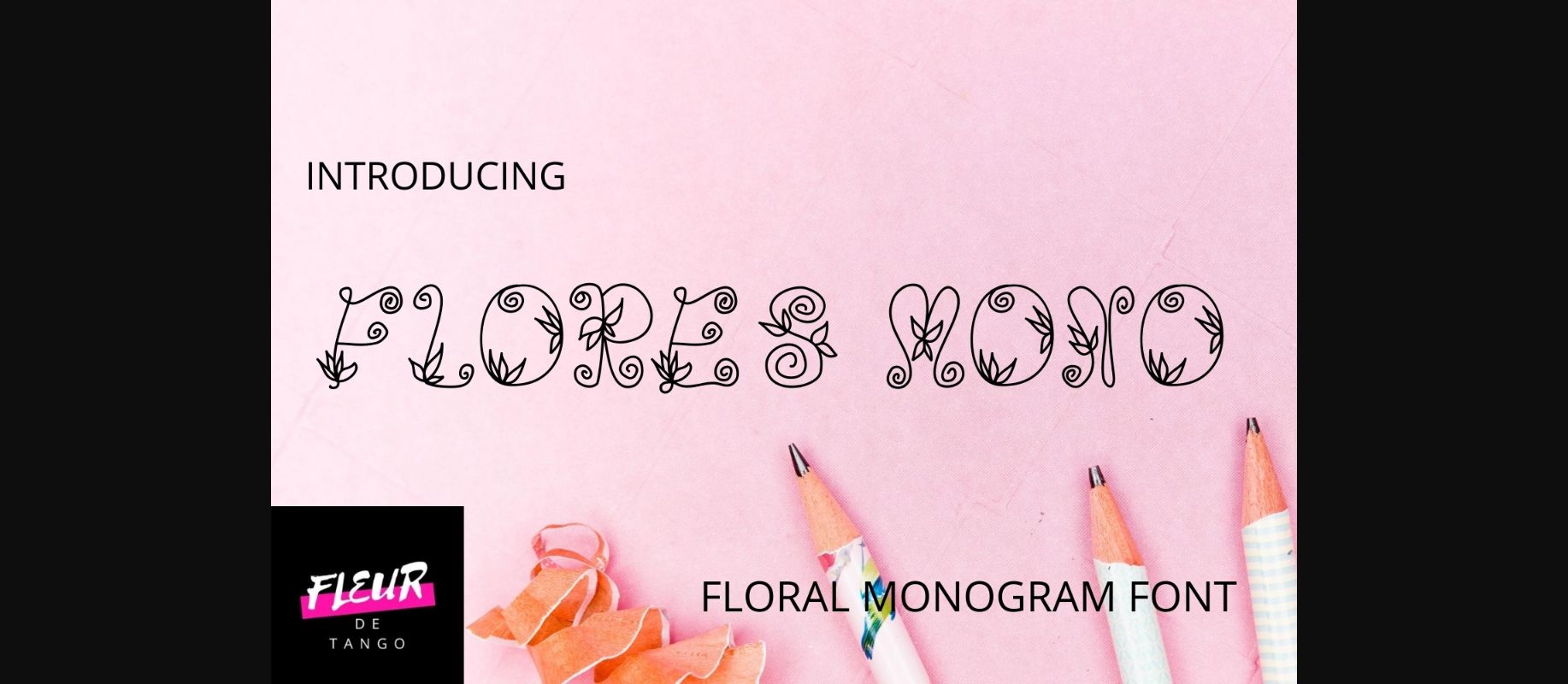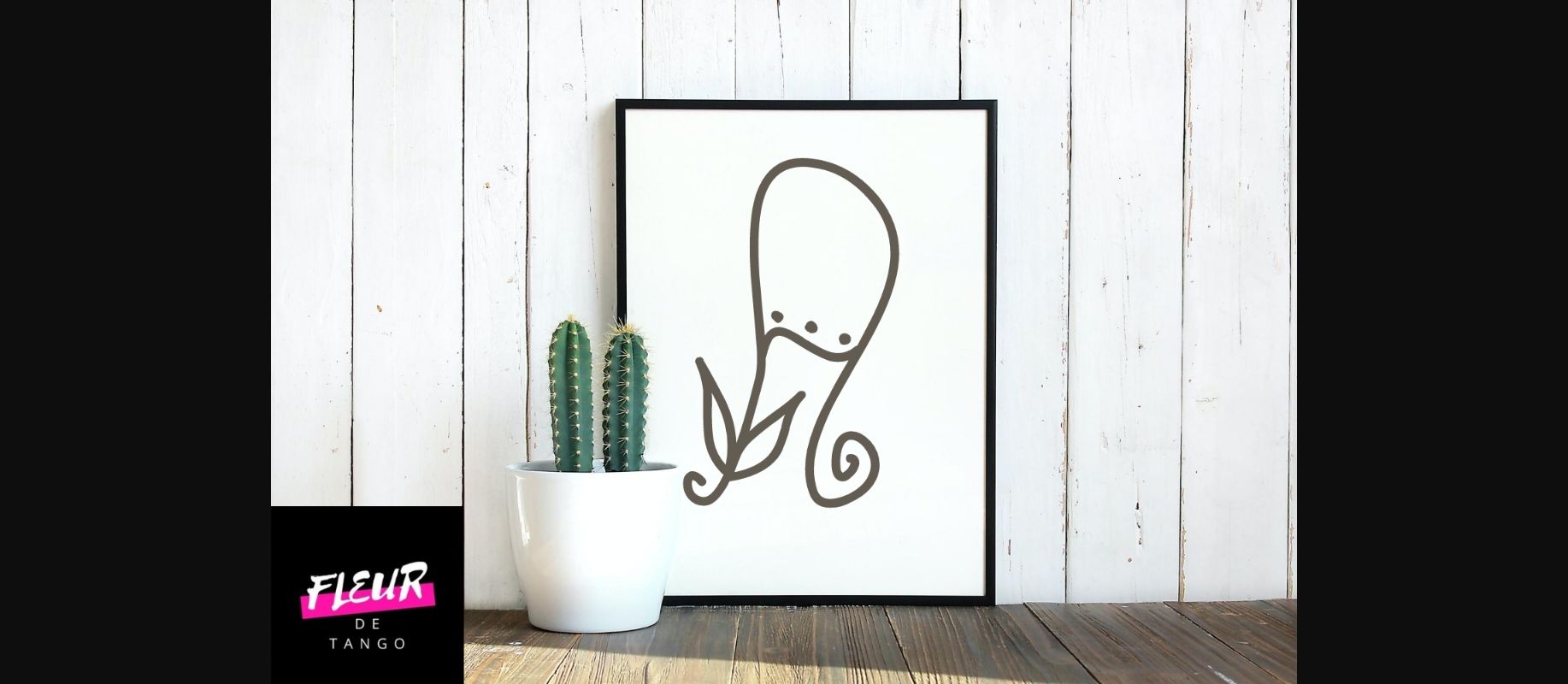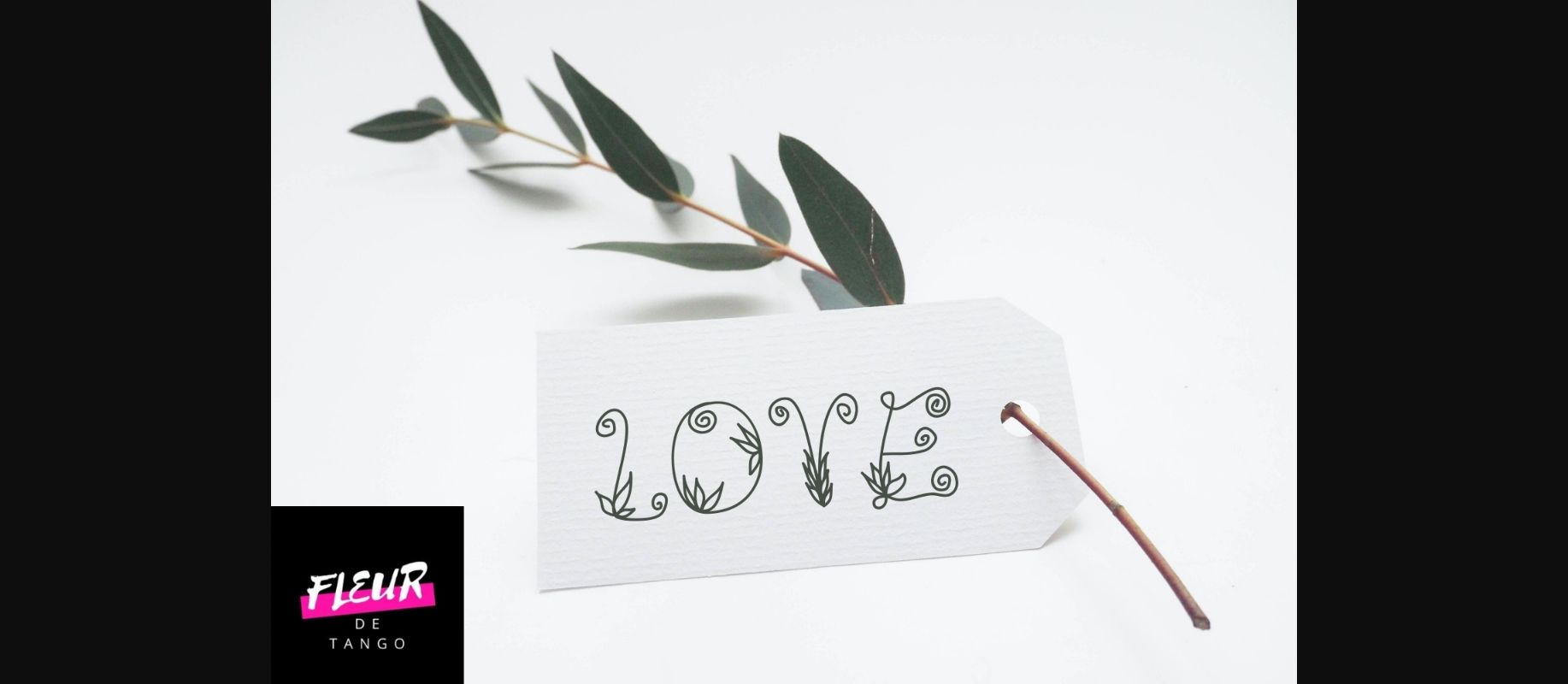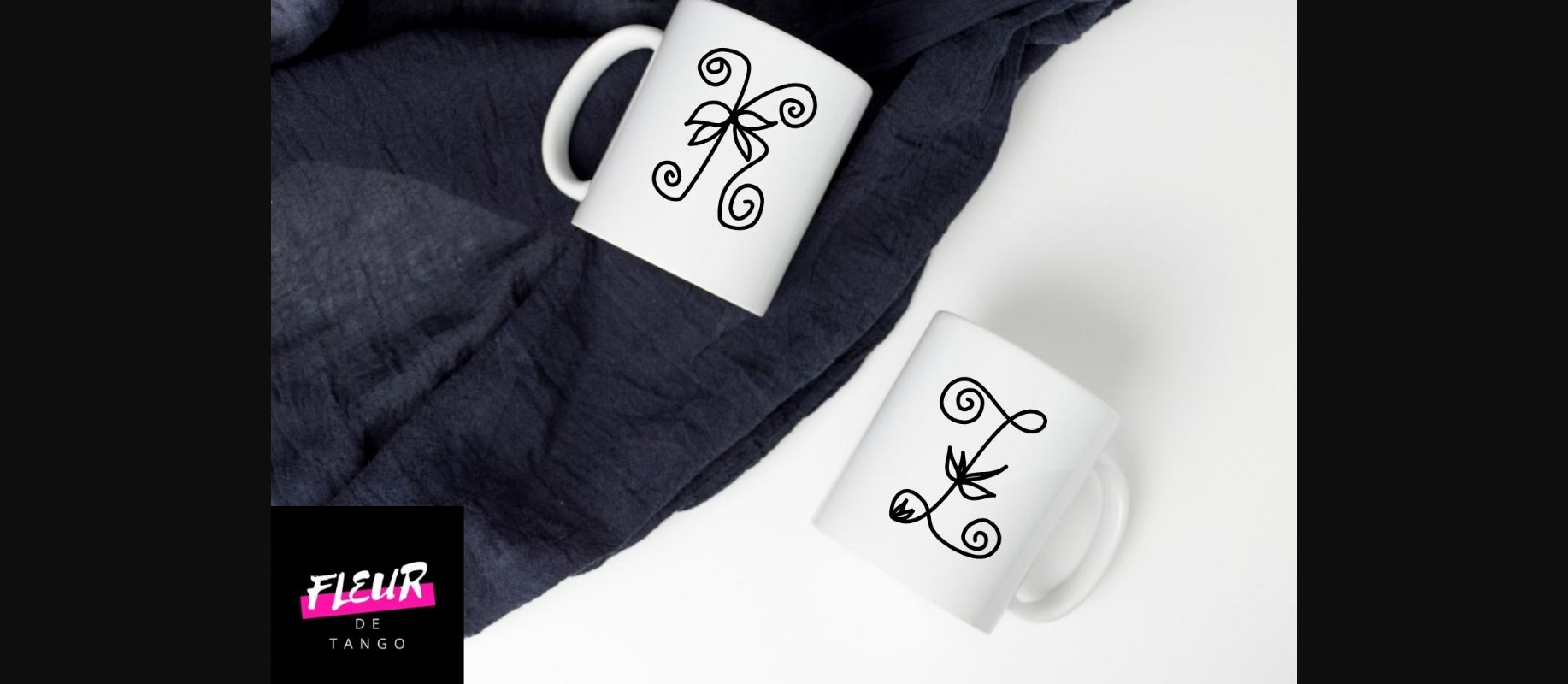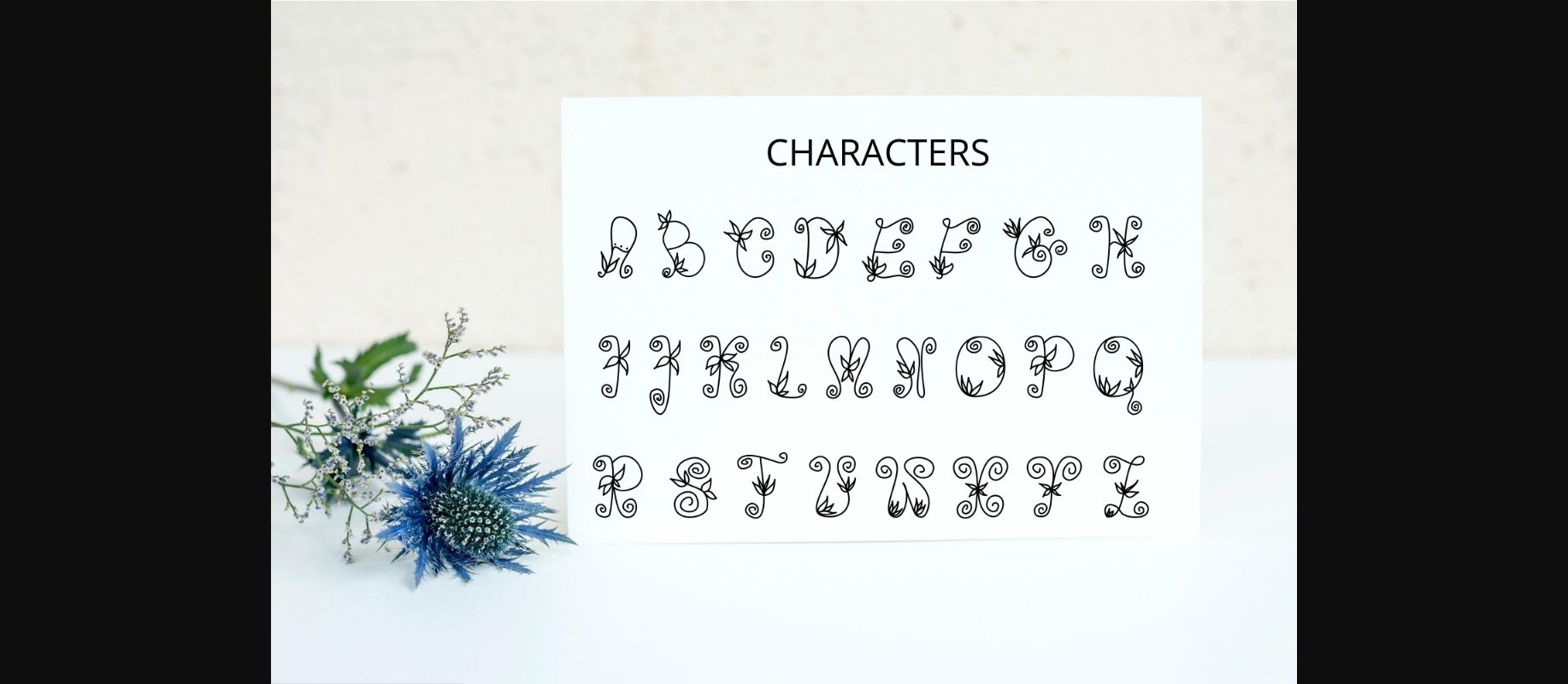
Flores Mono Font
About Flores Mono Font
Flores Mono is a beautiful decorative font, featuring flowers and wreaths as ornaments. Fall in love with its incredibly versatile style and use it to create gorgeous wedding invitations, beautiful stationary art, eye-catching social media posts, and much more!